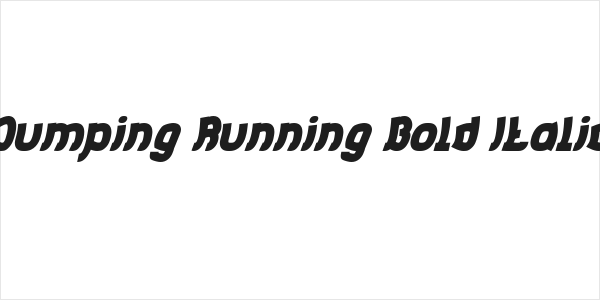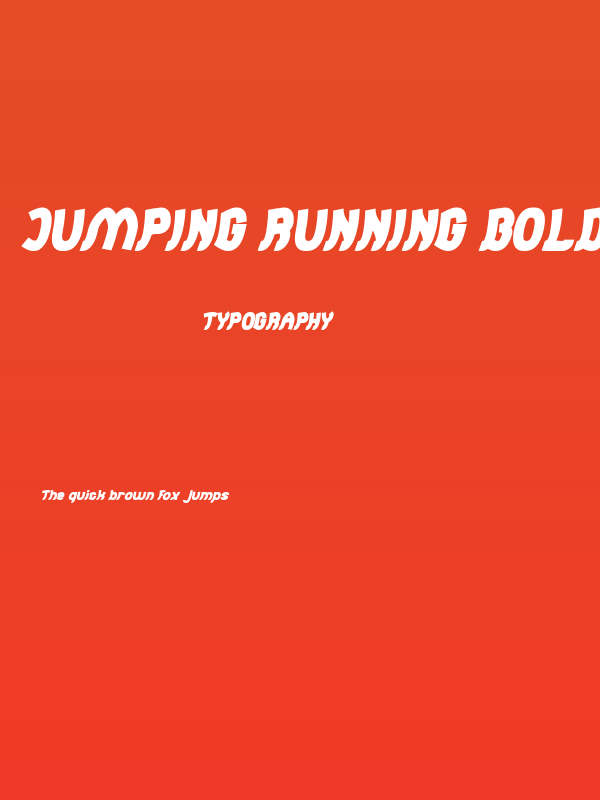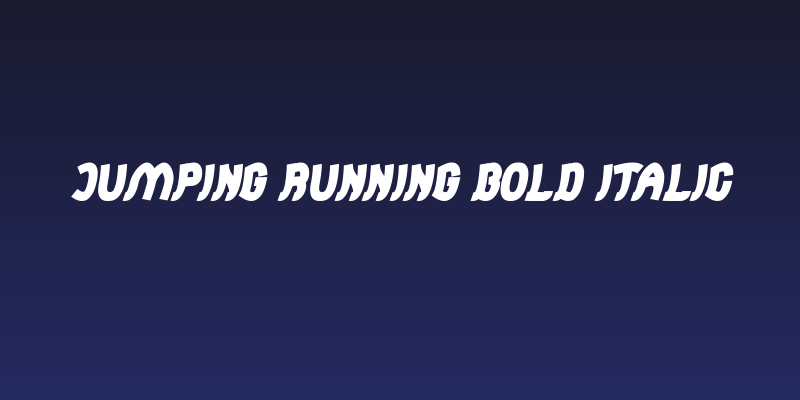
Jumping Running Bold Italic Font
Jumping Running Bold Italic Description
This dynamic and energetic font features bold, italicized characters with a playful and adventurous style. The letters have a forward-leaning slant, giving a sense of motion and speed. The strokes are thick and robust, with rounded edges that add a friendly and approachable feel. The uppercase and lowercase letters maintain a consistent style, while the numerals and special characters complement the overall design. This font is perfect for projects that require a lively and spirited touch, such as sports branding, action-themed posters, or playful merchandise.
| Proposed Projects | Ideal for sports branding, action-themed posters, and playful merchandise. |